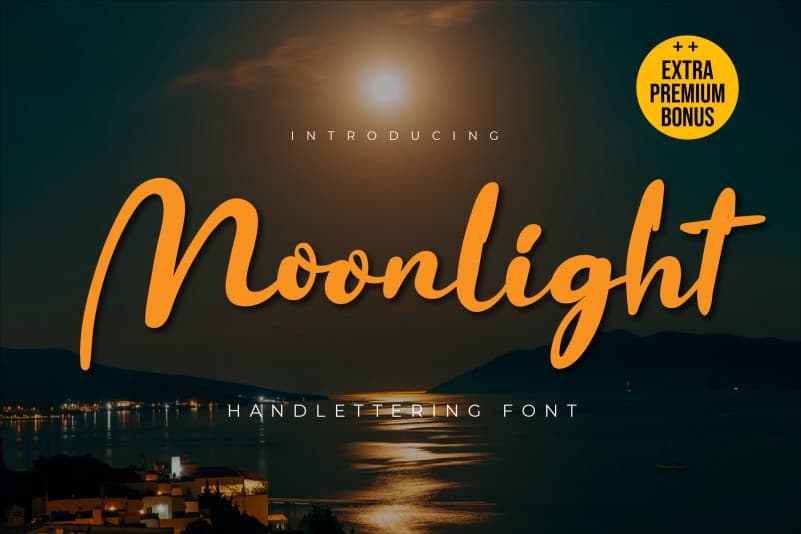
Moonlight Script Font
Moonlight Script Font is a relaxed and timeless handwritten font. It looks stunning on wedding invitations, thank you cards, quotes, greeting cards, logos, business cards and every other design which needs a handwritten touch.